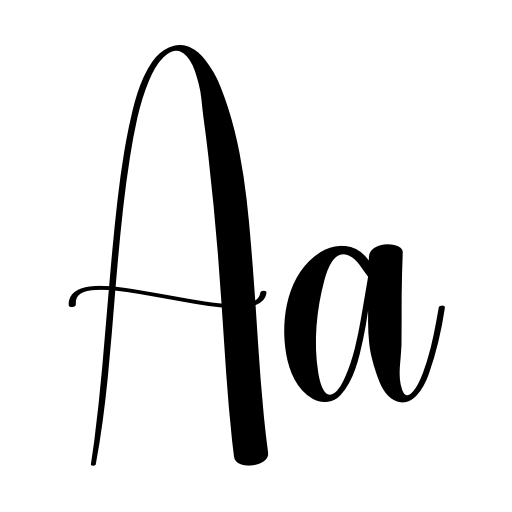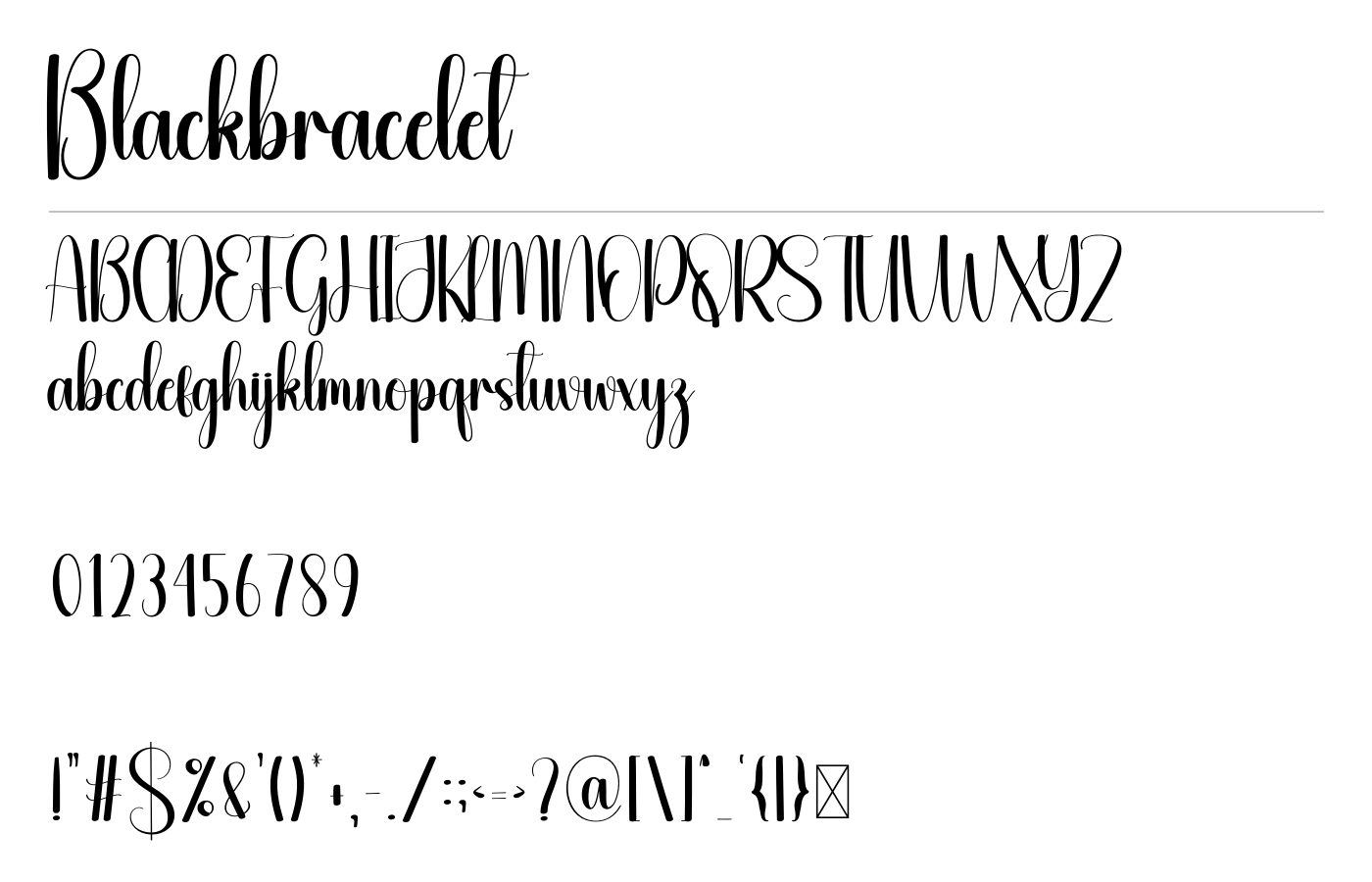
Blackbracelet is a slender, elegant script font with a playful and artistic flair. Its tall, narrow letterforms and delicate, flowing strokes create a sophisticated yet approachable look, perfect for invitations, branding, and fashion-related projects that seek a touch of personality and style. The font’s unique combination of thin lines and flowing curves makes it stand out in headline or logo designs, adding a graceful and modern charm.
Blackbracelet Font
About Blackbracelet Font